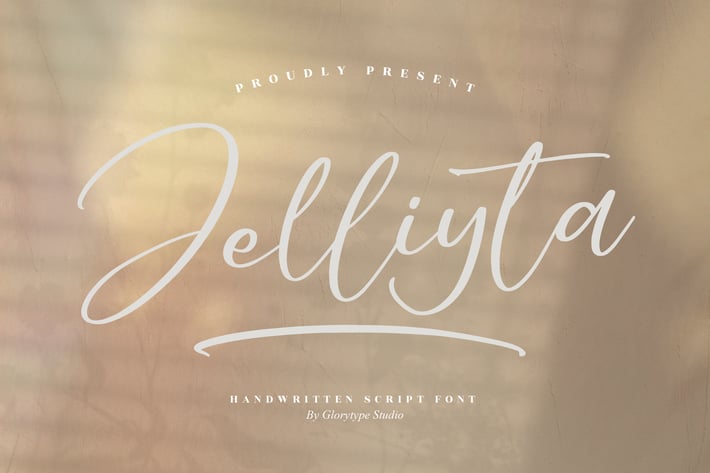
Jelliyta Handwritten Script Font
Jelliyta is a modern, elegant handwritten script that brings a soft, airy touch to any design. Its smooth curves and casual flow make it perfect for eye-catching headlines and warm, personal branding. Use Jelliyta to add effortless charm to posters, social media graphics, logos, invitations, and more—anywhere you want a graceful handwritten feel with contemporary polish.
+ Modern handwritten script with smooth, flowing strokes
+ Uppercase & lowercase letters, numerals, and punctuation
+ Alternates & ligatures for natural-looking text
Add a soft handwritten charm to your visuals with Jelliyta.